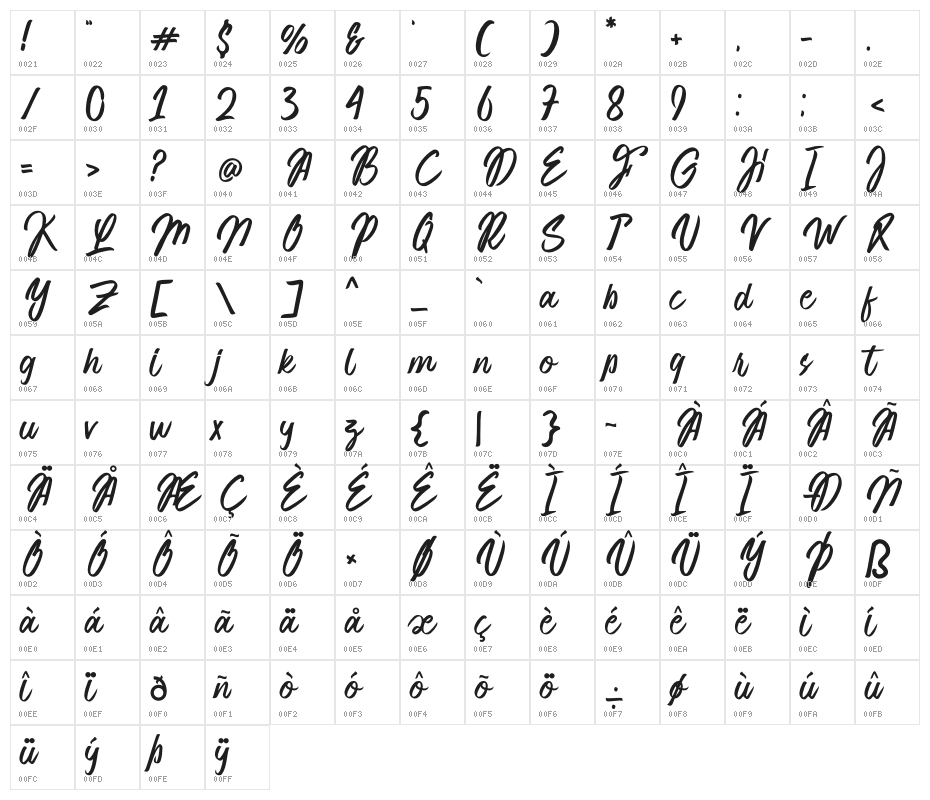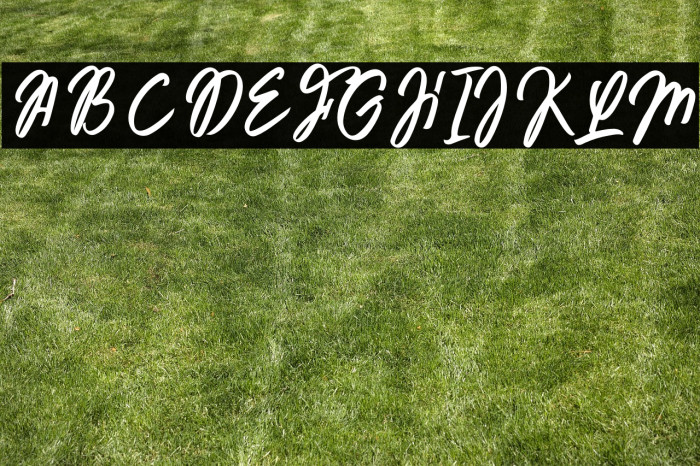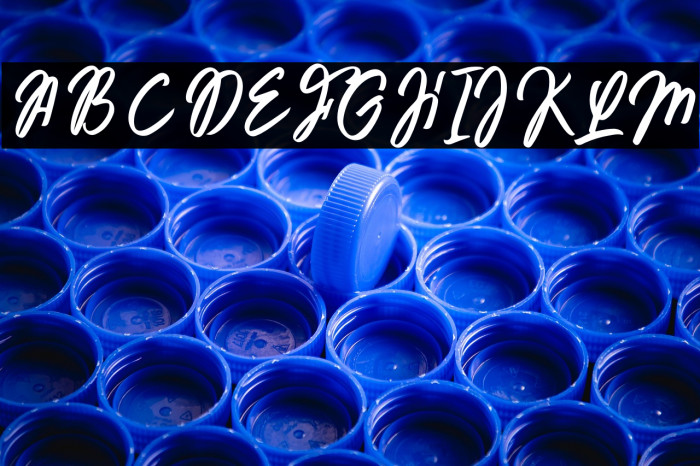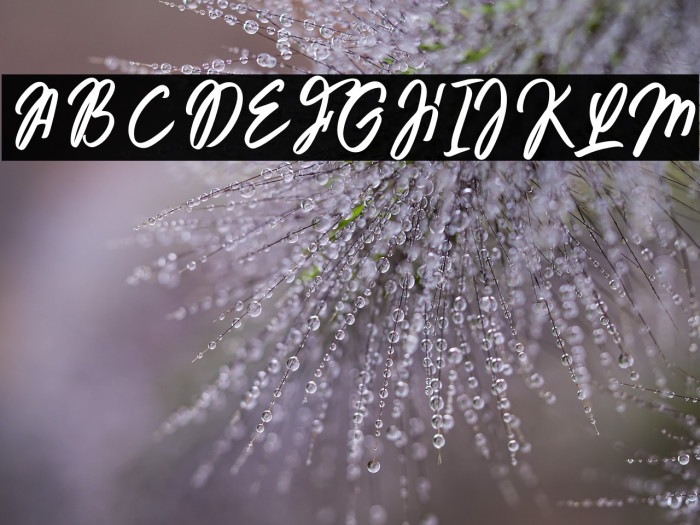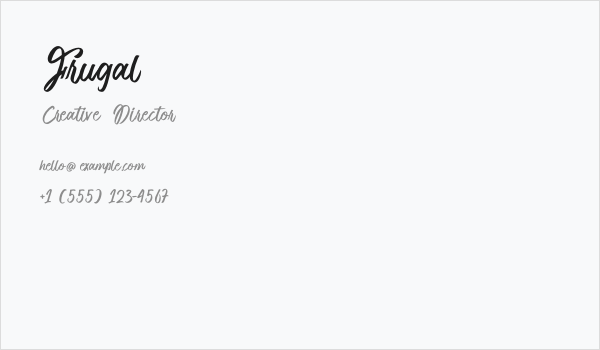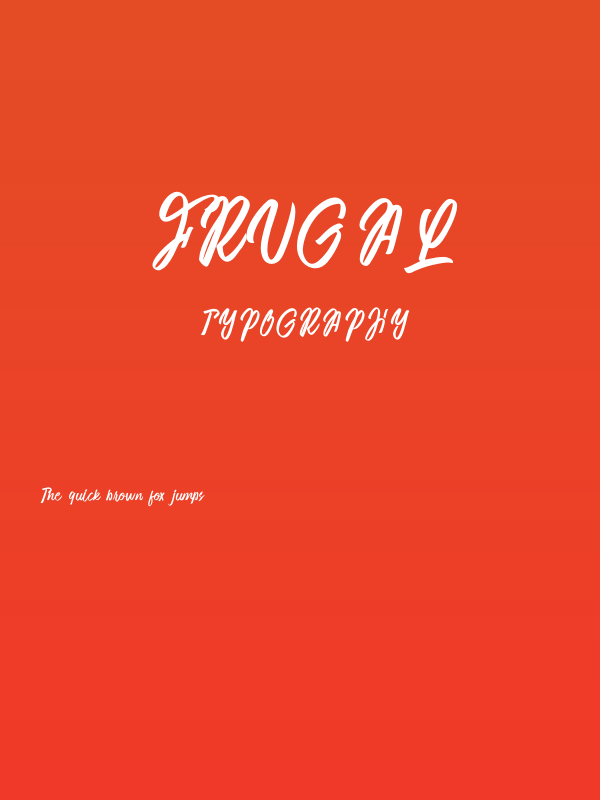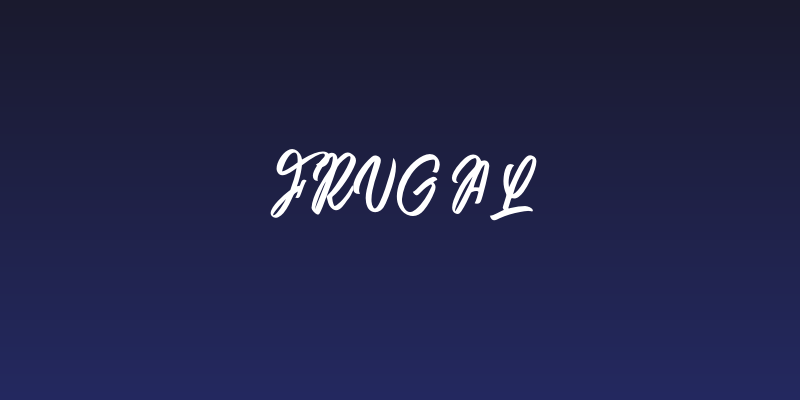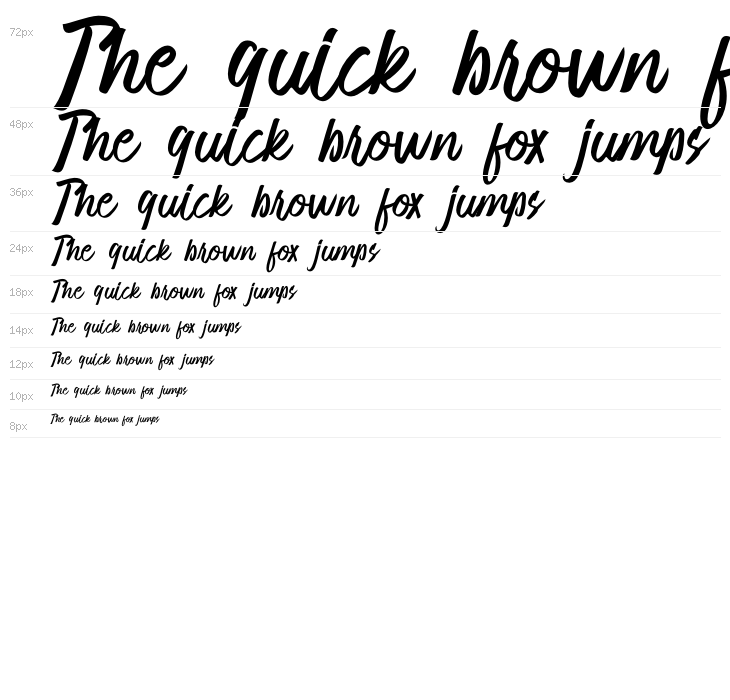
Frugal Font
Frugal Description
This font exudes a lively and dynamic character with its bold, cursive style. The letters are interconnected, creating a fluid and continuous flow that mimics natural handwriting. The uppercase letters maintain a consistent height, while the lowercase letters exhibit a playful bounce, adding to the font's energetic appearance. The numerals are equally bold and maintain the same cursive style, ensuring uniformity across all characters. Special characters are designed to match the overall aesthetic, making them seamlessly integrate with the rest of the font. The strokes are thick and consistent, providing a strong visual impact that is both modern and expressive.